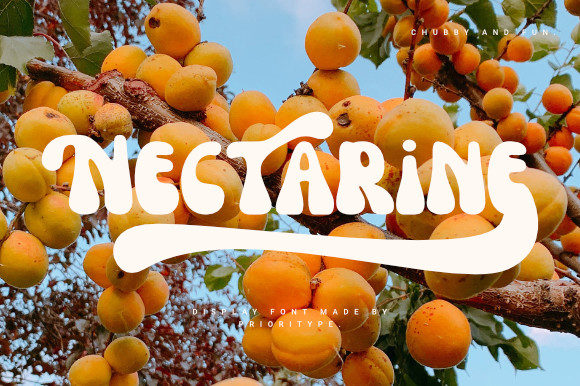
Looking for the perfect font to enhance your modern resume? Look no further than Nectarine Font by Prioritype. This cool and retro styled display font is sure to make your resume stand out in the sea of mundane applications.
With Nectarine Font, you have access to all glyphs and swashes, thanks to its PUA encoding. This means that you can easily add stylish flourishes and unique characters to your text without any hassle. Plus, this font is versatile enough to work in a variety of creative contexts, from branding and advertising to social media posts and more.
When you use Nectarine Font, you're not just getting a stylish typeface, you're also getting access to the latest design trends. This font is perfect for those who want to showcase their creative flair and stand out from the crowd.
Whether you're a designer, marketer, or simply looking to elevate your personal brand, Nectarine Font is the perfect choice. With its cool retro style and modern edge, it's sure to make a lasting impression on anyone who sees it.